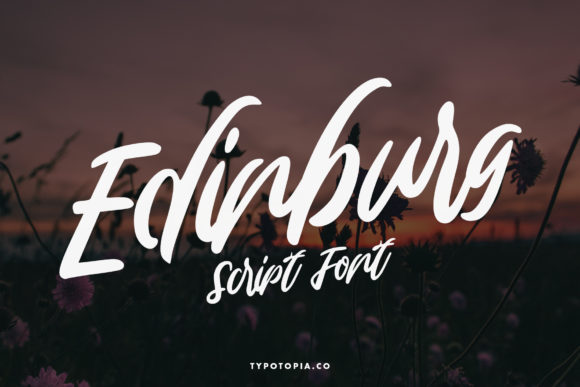
Immerse yourself in the world of Edinburg, a captivating script font that embodies boldness and beauty. Crafted with meticulous care by typotopia, this font is not just a collection of letters; it's an artistic masterpiece waiting to unleash your creativity.
Unleash your artistic vision with Edinburg, the script font that captivates and compels. Its bold strokes and elegant curves dance across the page, leaving a trail of visual intrigue. Whether you're a seasoned designer or just starting your creative journey, Edinburg will elevate your projects to new heights.
With Edinburg, you hold the key to unlocking a world of creative possibilities. Its versatility shines through in every application, from logos and branding to invitations and social media posts. Its timeless appeal transcends trends, making it a font that will never cease to inspire.
Step into the realm of Edinburg and let your imagination run wild. This script font is your passport to a world of artistic freedom, where every letter carries a story and every word paints a picture. Make a statement, leave a lasting impression, and let your designs speak volumes with Edinburg.